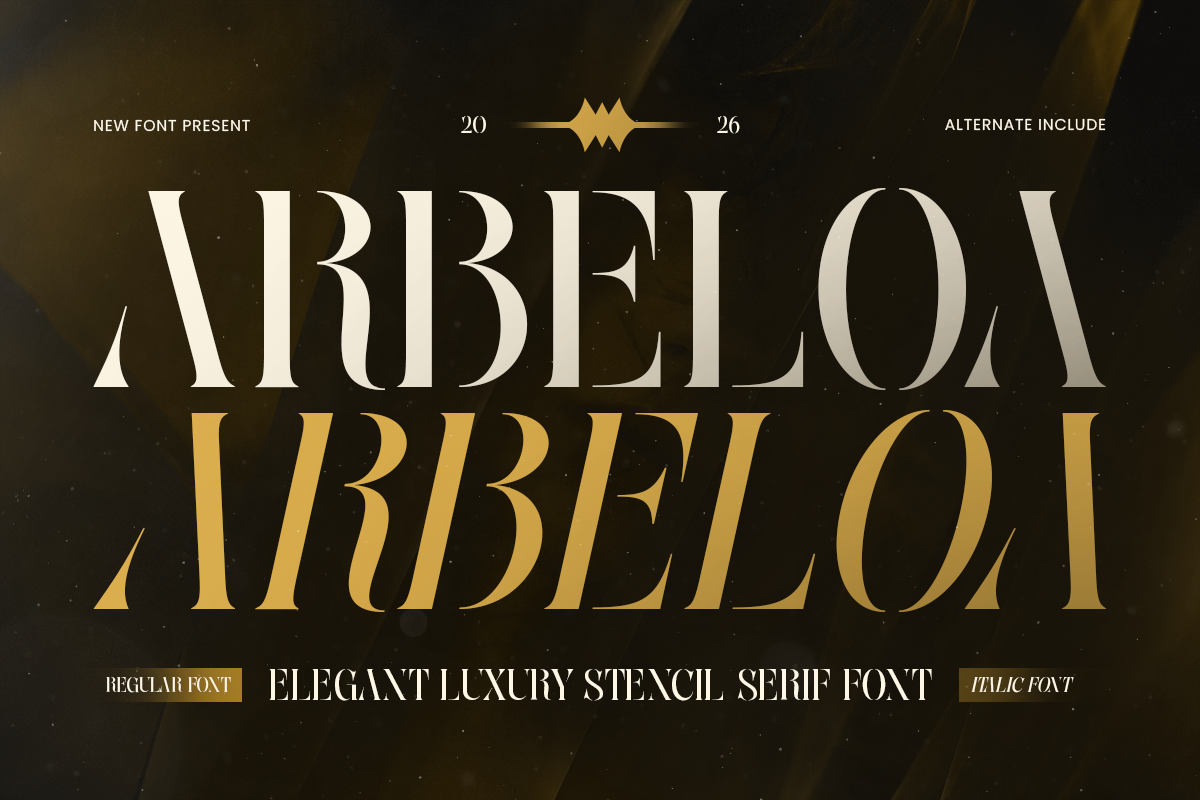
Arbeloa
-Elegant Luxury Stencil Serif FontArbeloa – Elegant Luxury Stencil Serif Font
Arbeloa is an elegant luxury stencil serif font designed to bring sophistication and distinctive character to modern typography. Combining refined serif structures with subtle stencil detailing, Arbeloa creates a premium visual style that feels graceful, confident, and timeless.
Perfect for luxury branding, fashion logos, beauty packaging, editorial layouts, invitations, posters, and premium product identities, Arbeloa adds an elevated touch to every composition. Its elegant letterforms work beautifully for headlines, logotypes, monograms, signage, and sophisticated social media graphics.
With its balance of classic serif elegance and contemporary stencil details, Arbeloa is an excellent choice for fashion houses, beauty brands, boutique businesses, hospitality, and high-end creative projects. Designed to make a statement without sacrificing refinement, this luxury serif font brings a distinctive identity to both digital and print applications.
Arbeloa – Elegant Luxury Stencil Serif Font Features
Elegant serif letterforms with refined stencil detailing
Sophisticated design for premium and luxury branding
Ideal for logos, fashion, beauty, packaging, and editorial
Perfect for headlines, posters, invitations, and signage
Works beautifully across digital and print projects
OpenType features for enhanced typographic flexibility